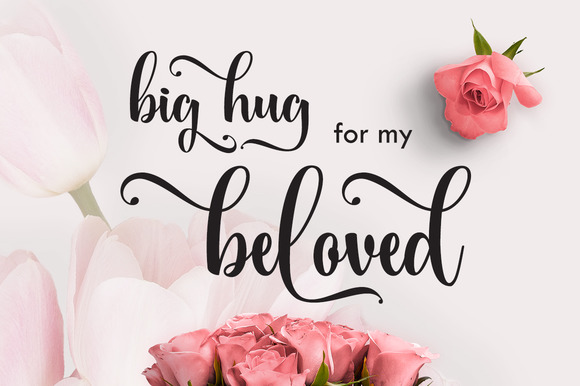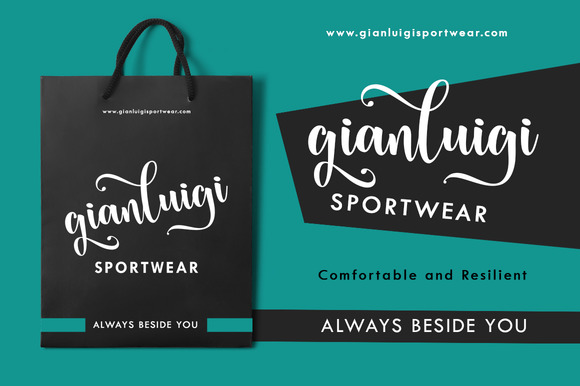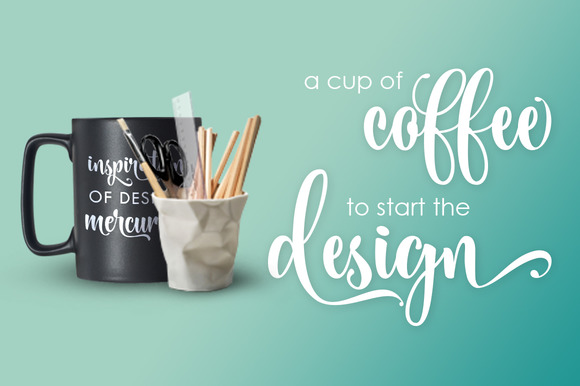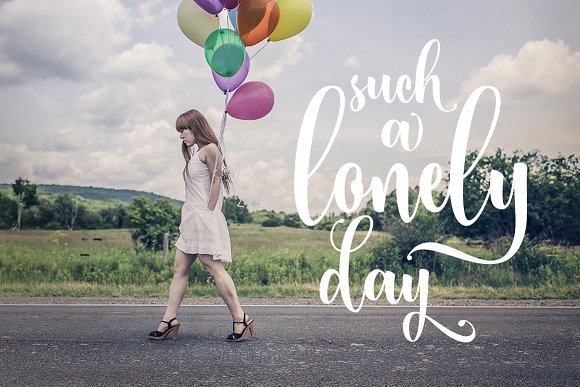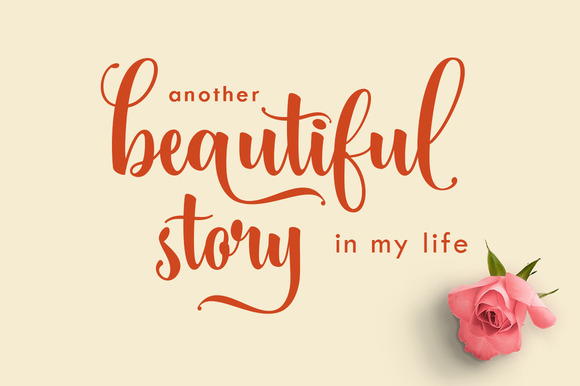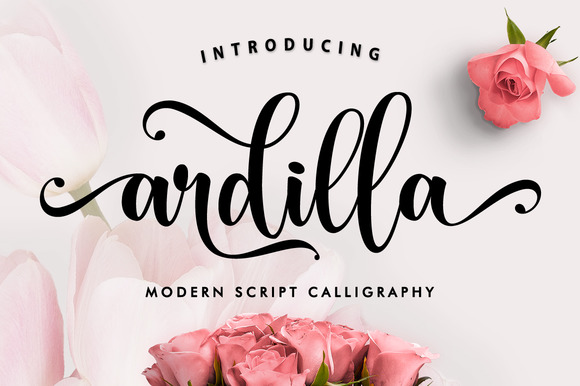
Ardilla Script Font
This is ARDILLA, a new fresh & modern script with calligraphy style. a charming typeface and So beautiful on invitation like greeting cards, branding materials, business cards, quotes, posters, and more. ARDILLA also has a swash letters from a – z that would make it a more attractive font.